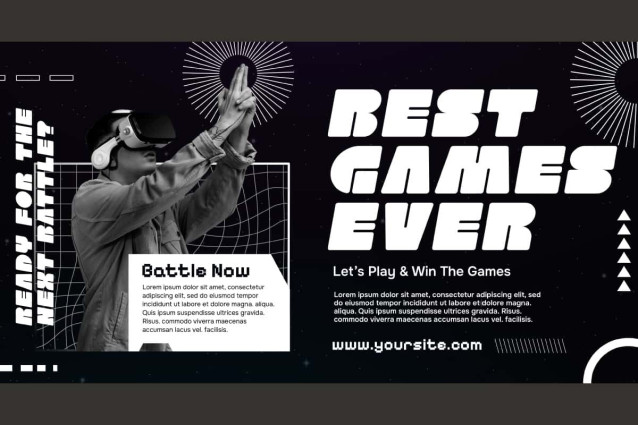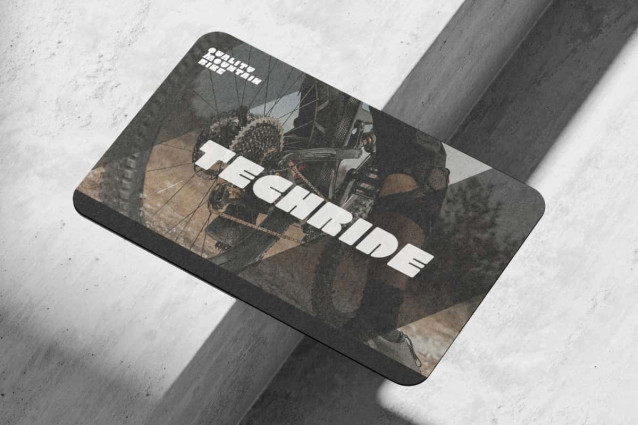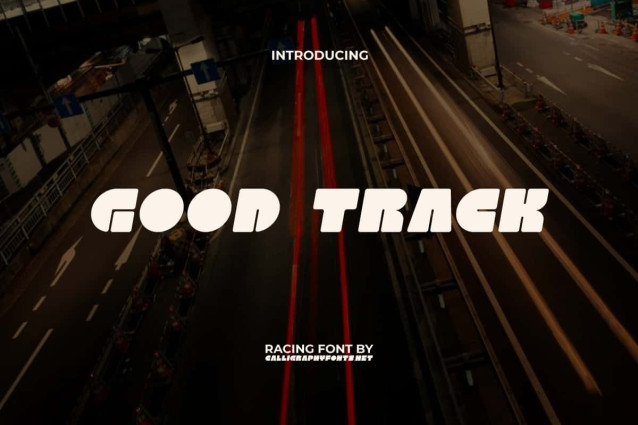
Good Track Font
Good Track Font is a modern and futuristic looking racing display font. This font is very suitable for application in projects that carry a sports theme. Perfect for banner, billboard, blogs, brand logo, brochure, business card, covers, decals, flyer, headers, mockup, monograms, poster, printed materials, stationery, t-shirt, template, title, website, and much more.
Good Track Font has the basic visual characteristics of a slightly italic and bold sans serif initial letter in a unique style. Perfect for accessories and merchandise, automotive, clothing brand, cycling, fashion, games, graphic design, musician, outdoor sports, printing, publishing, sport racing, sportwear, transport advertising, vehicle showroom, and much more.